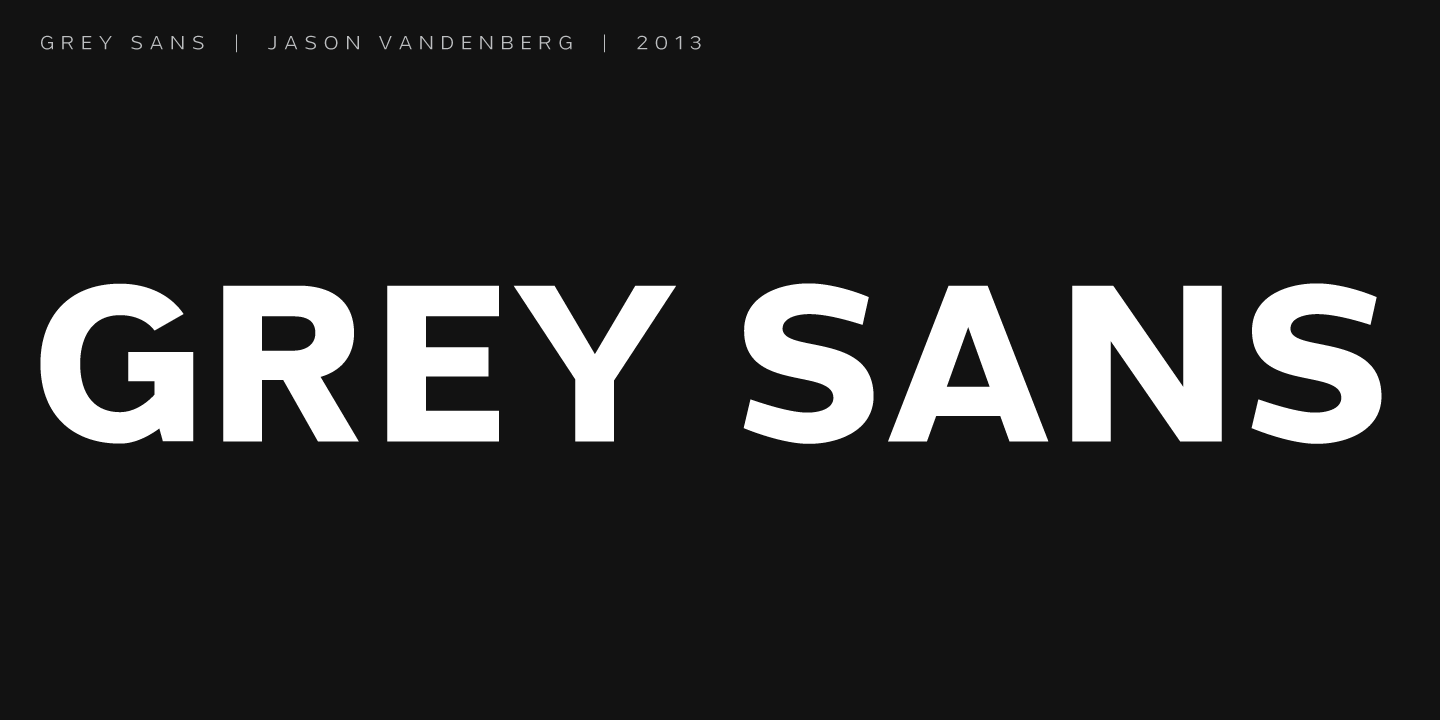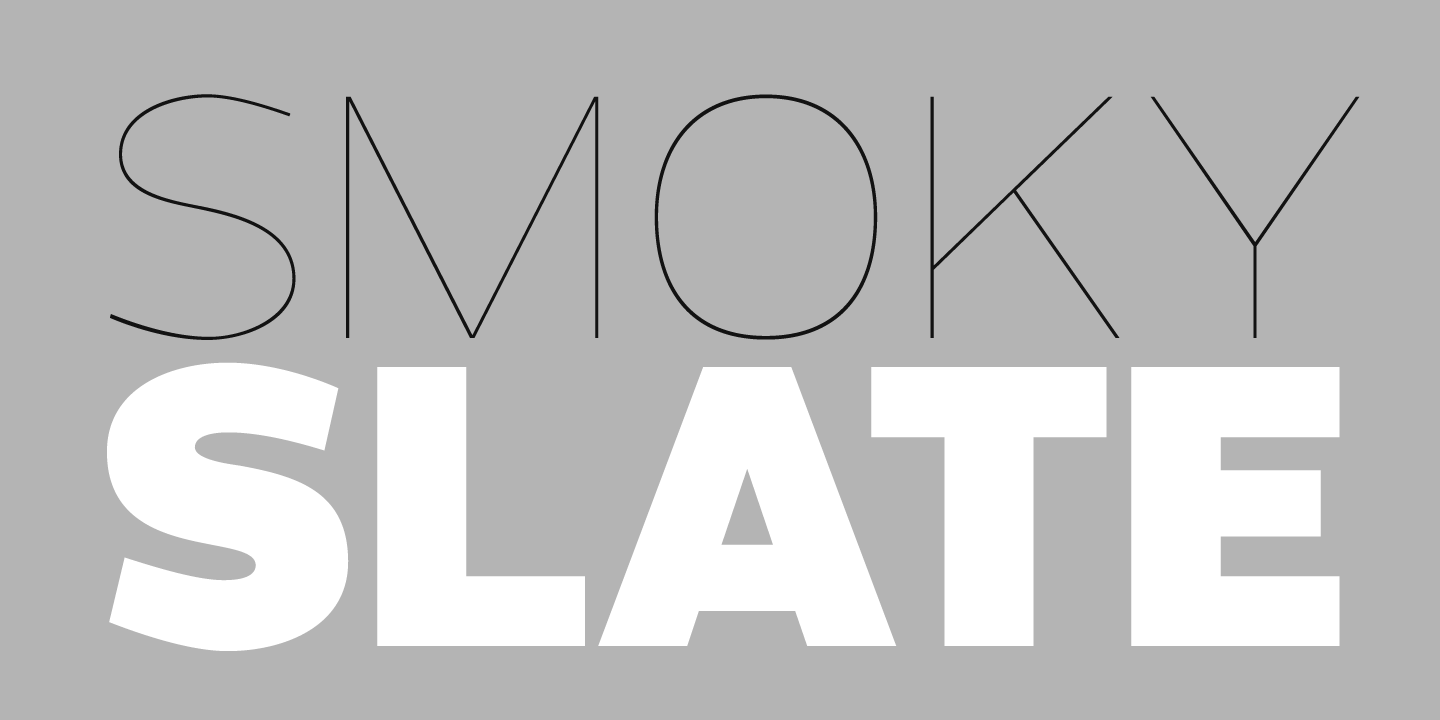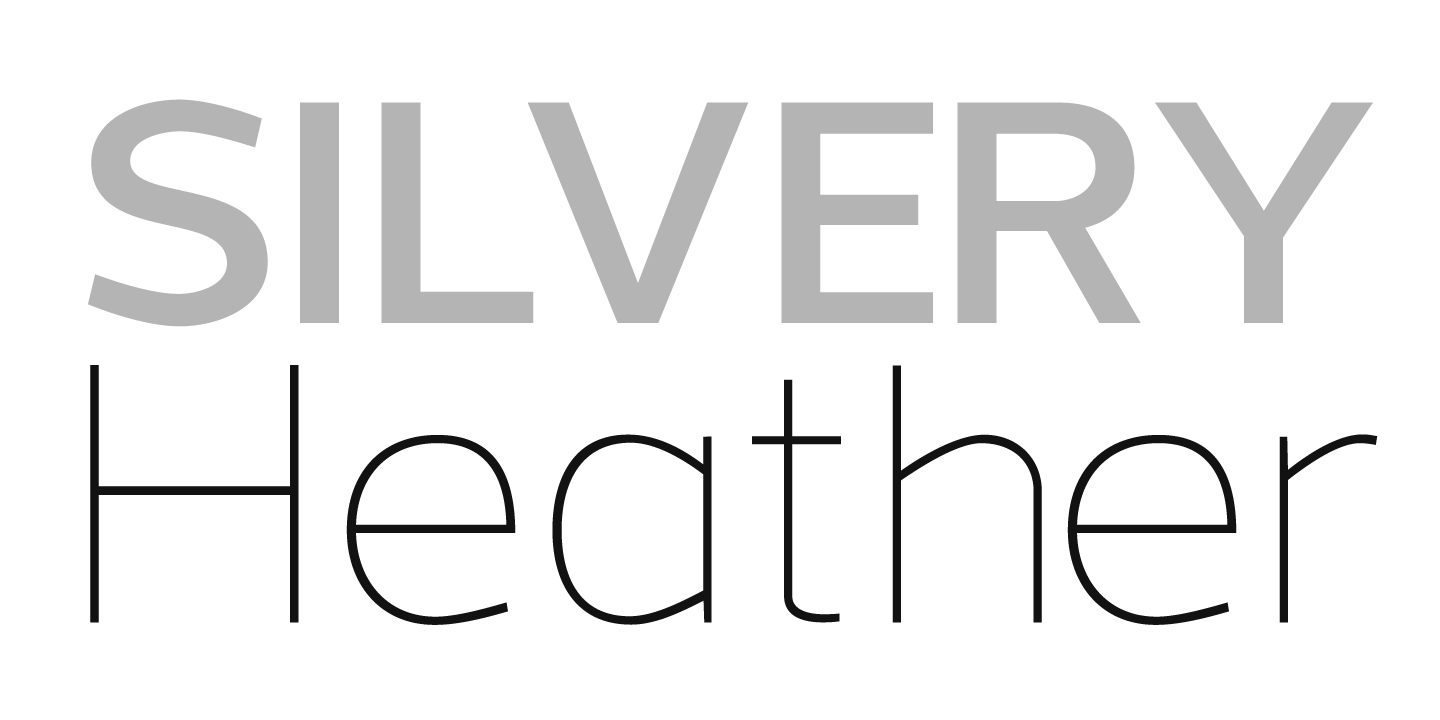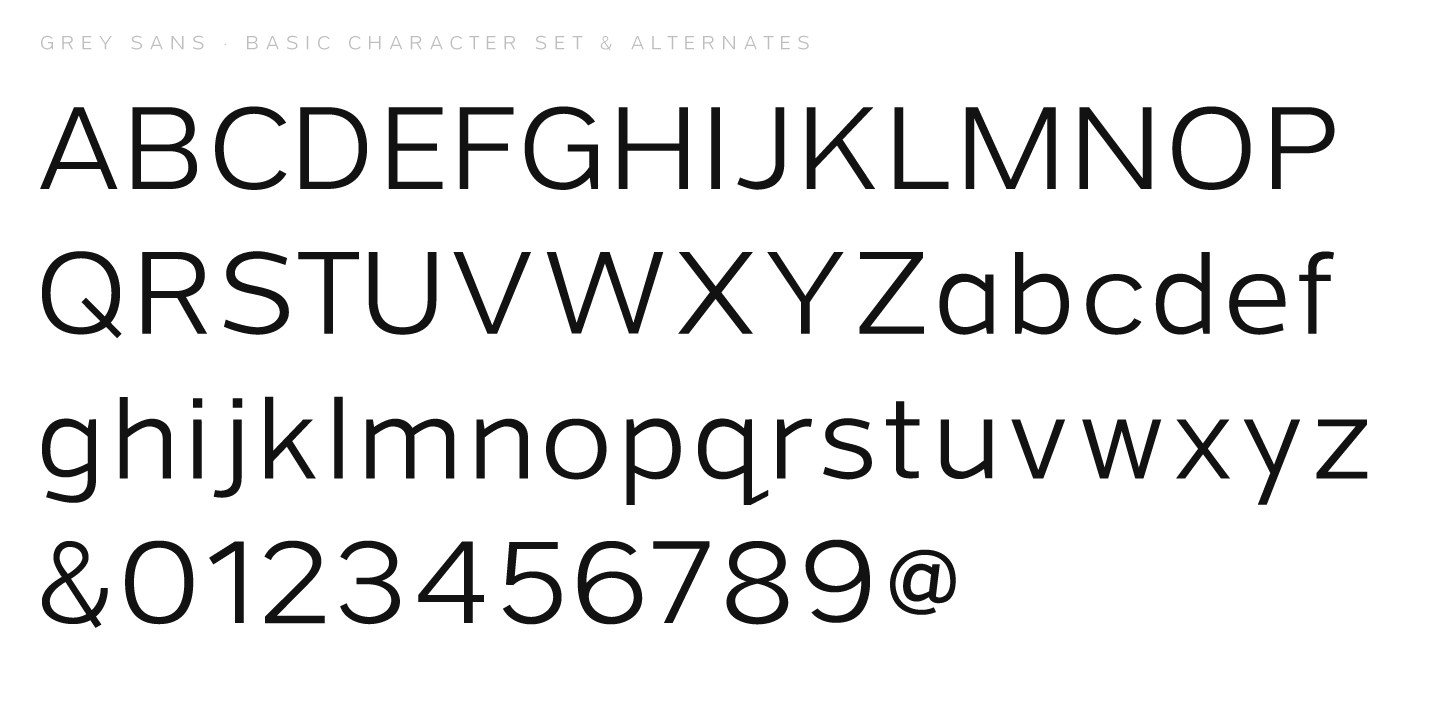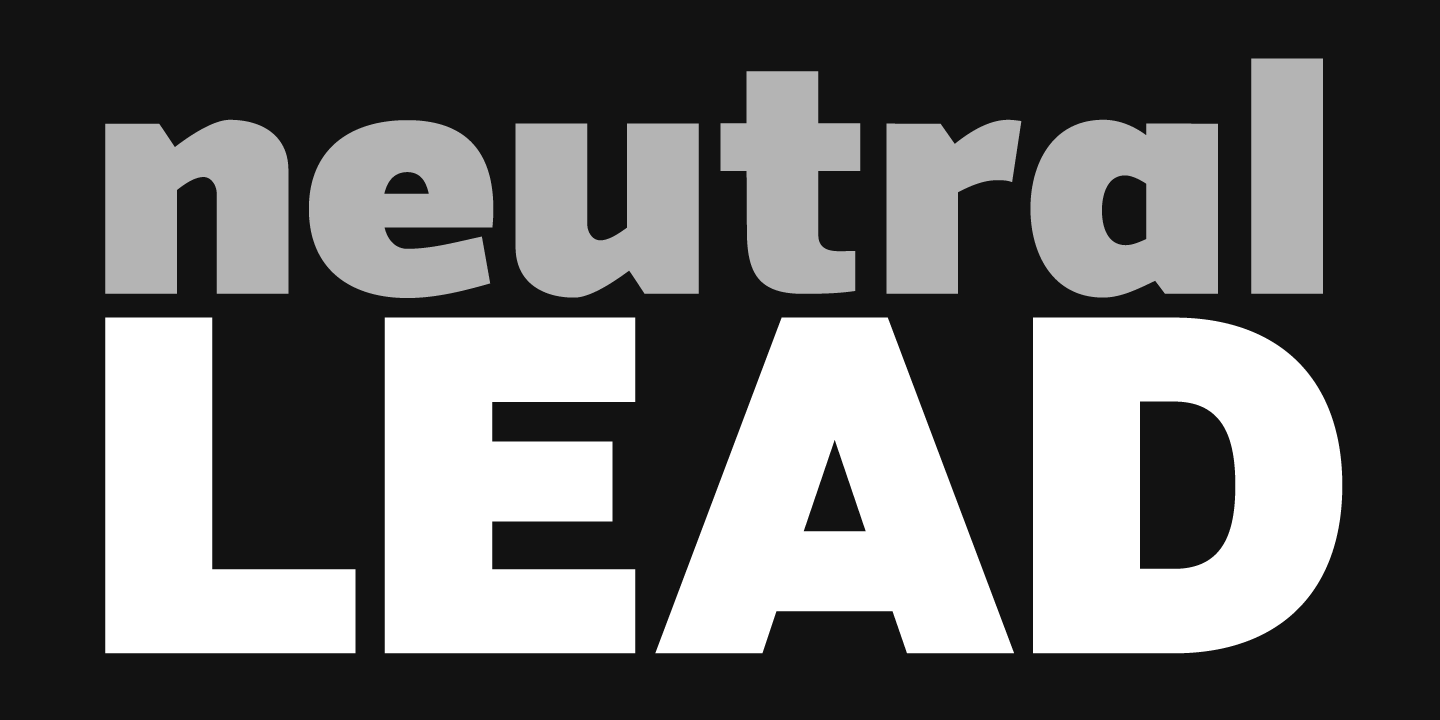
Grey Sans Font Family
A grotesque with an angular design.
Grey Sans font by J Foundry — the words “GREY SANS” in large, upright, sans-serif letters, with smaller text “GREY SANS | JASON VANDENBERG | 2013” above
Grey Sans font by J Foundry — the word “SMOKY” in thin, upright, sans-serif capitals above the word “SLATE” in thick, upright, sans-serif capitals
Grey Sans font by J Foundry — the word “SILVERY” in gray, sans-serif, upright capitals above the word “Heather” in black, sans-serif, upright lowercase letters
Grey Sans font by J Foundry — the upright sans serif alphabet in uppercase and lowercase, numbers, ampersand, and at sign
Grey Sans font by J Foundry — the word “neutral” in gray sans-serif letters above the word “LEAD” in white sans-serif capitals